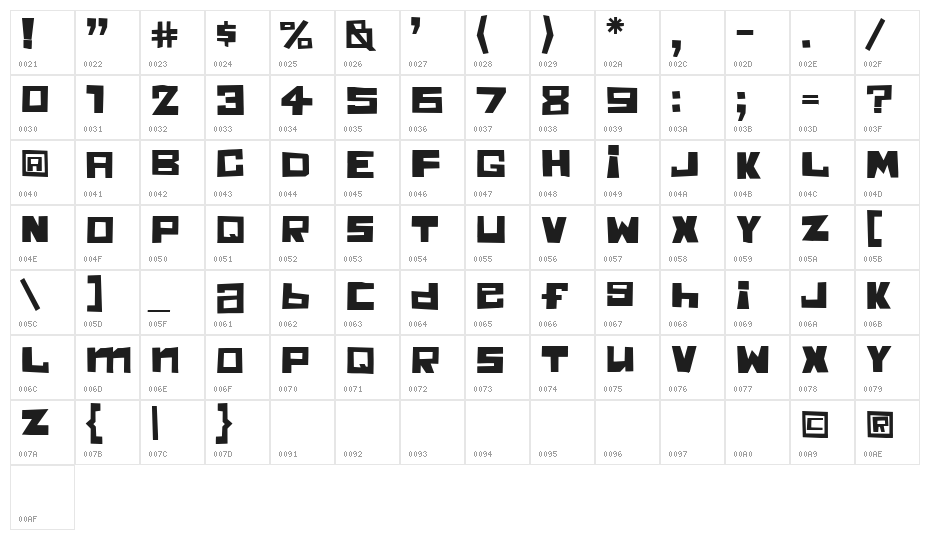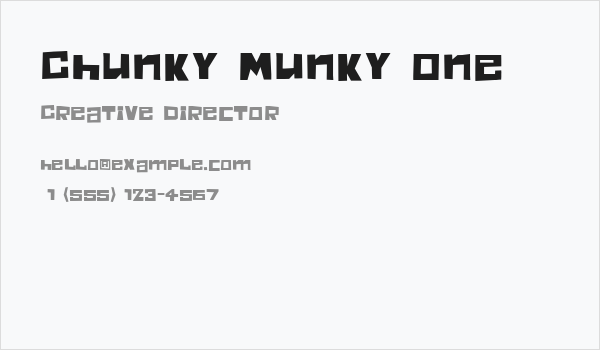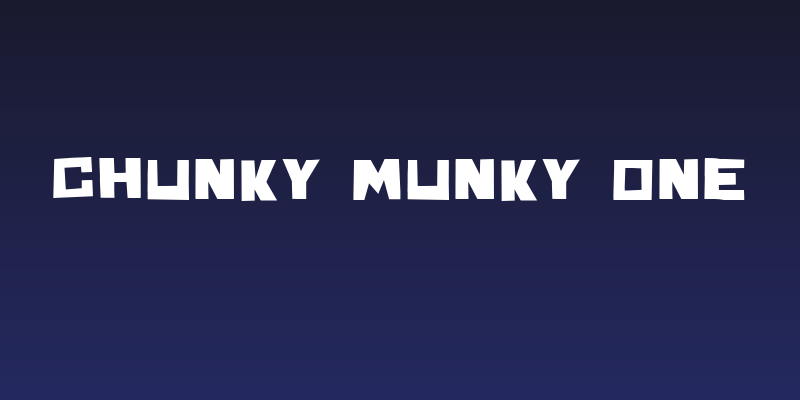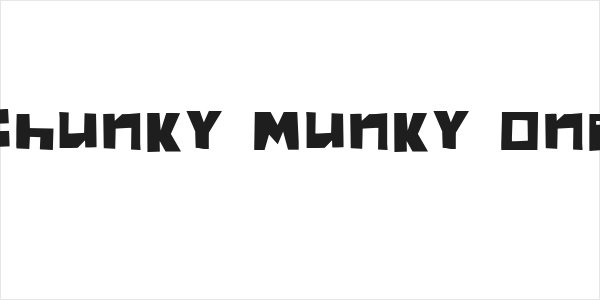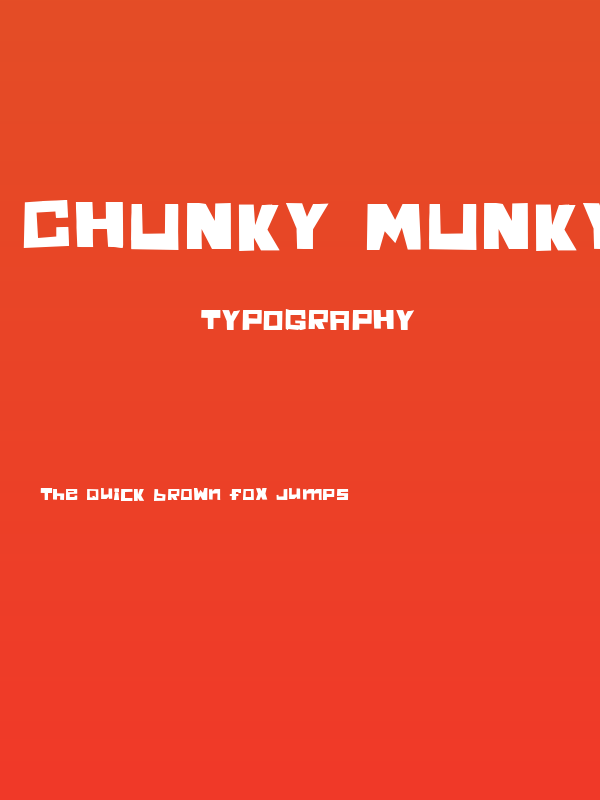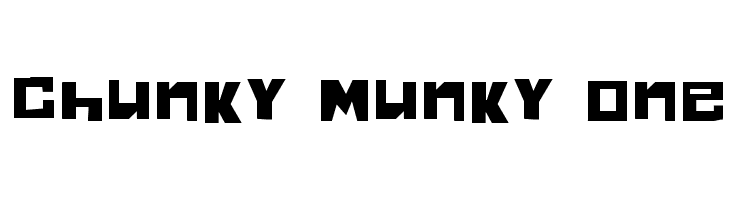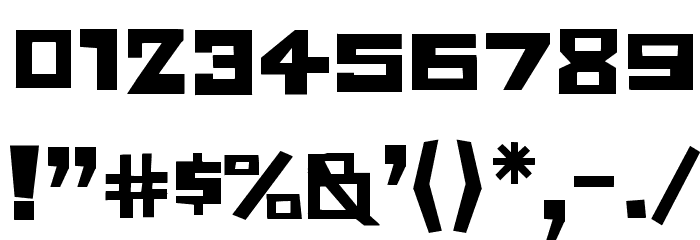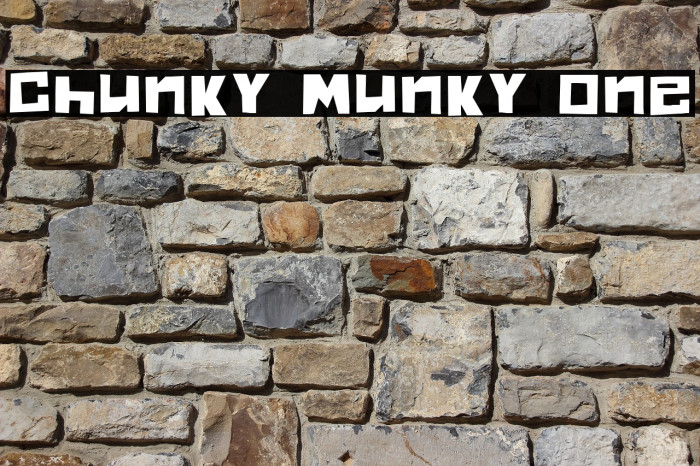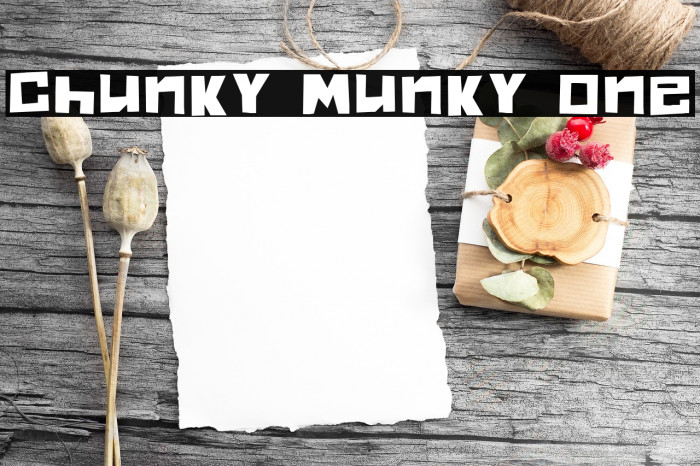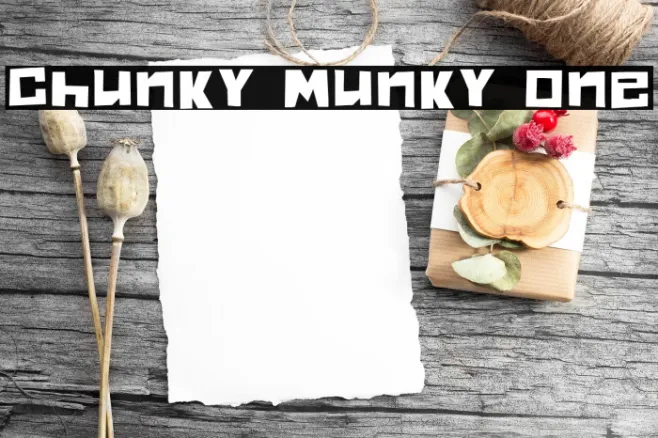
Chunky Munky One Font
Chunky Munky One Description
This font features a bold, geometric style with a playful and chunky appearance. The characters are constructed with sharp angles and straight lines, giving them a blocky, robust look. The uppercase and lowercase letters maintain a consistent weight, contributing to a cohesive and uniform aesthetic. The numerals and special characters follow the same design principles, ensuring a harmonious overall appearance. This font's unique style makes it stand out, with its thick strokes and angular forms creating a strong visual impact.
| Proposed Projects | Ideal for projects that require a fun and eye-catching display, such as posters, logos, and children's book covers. |